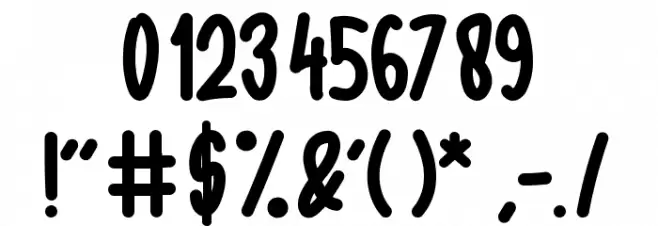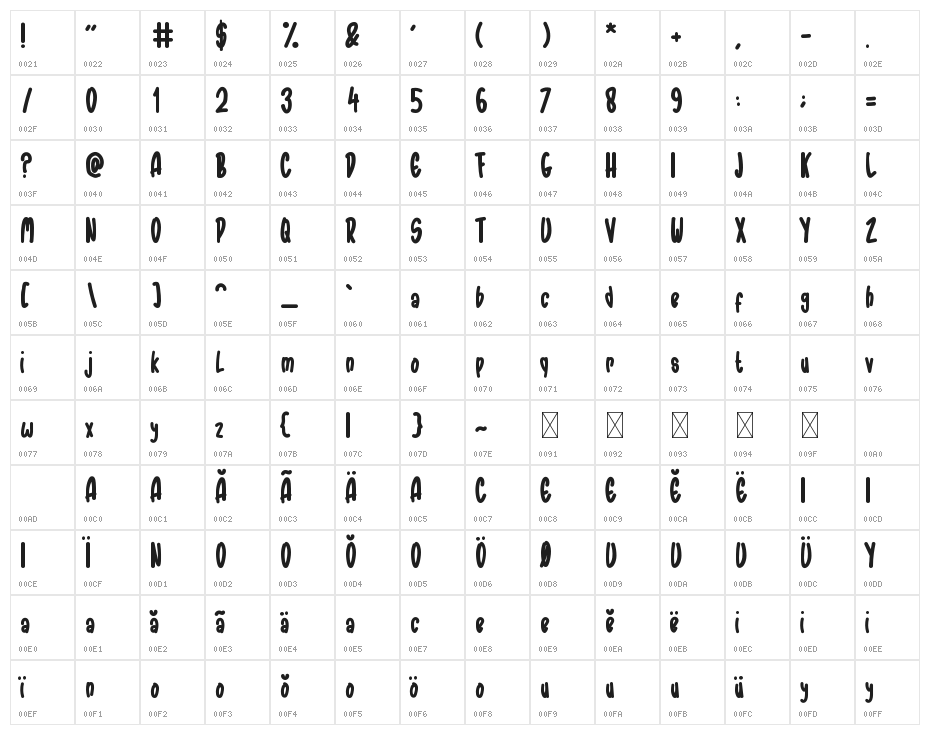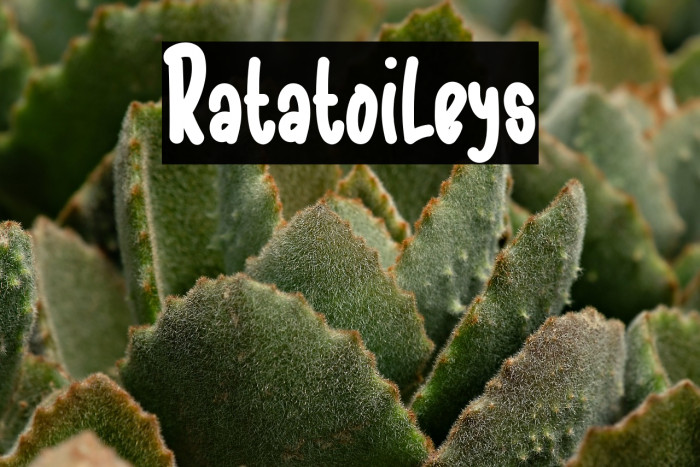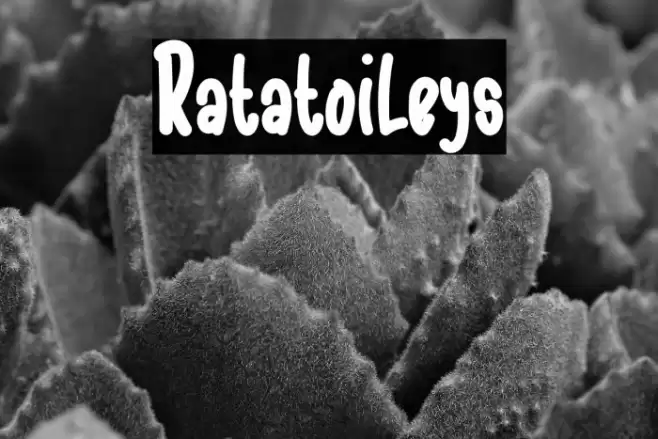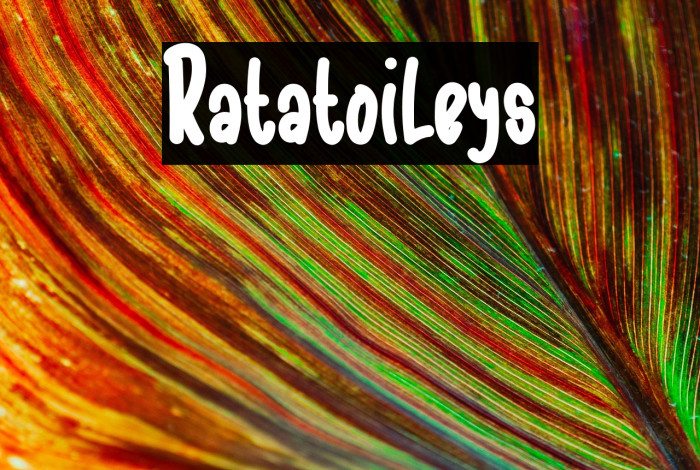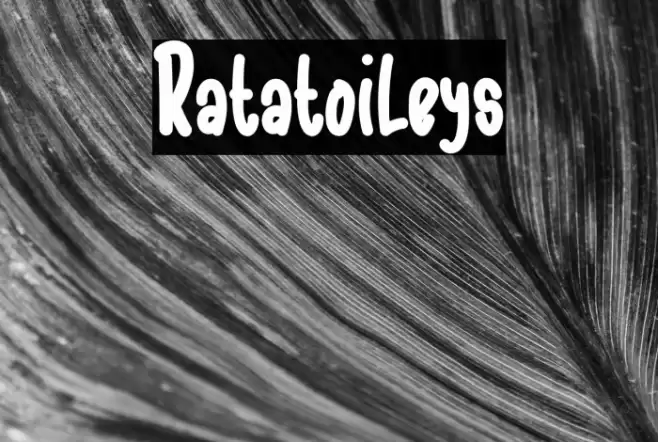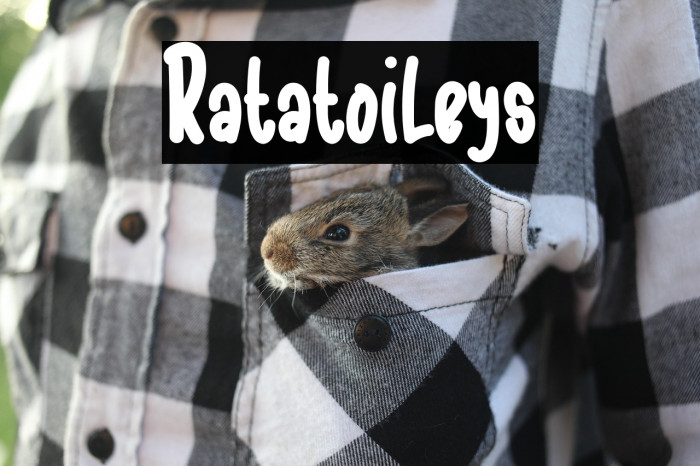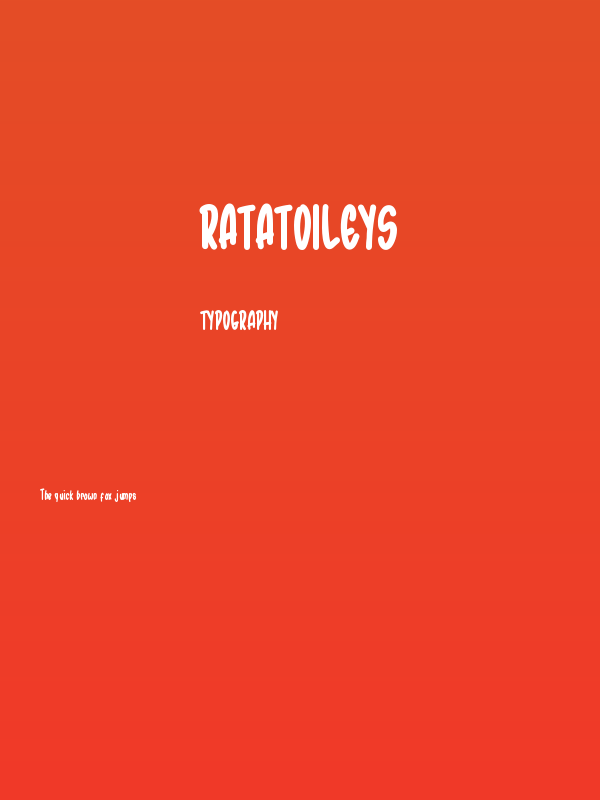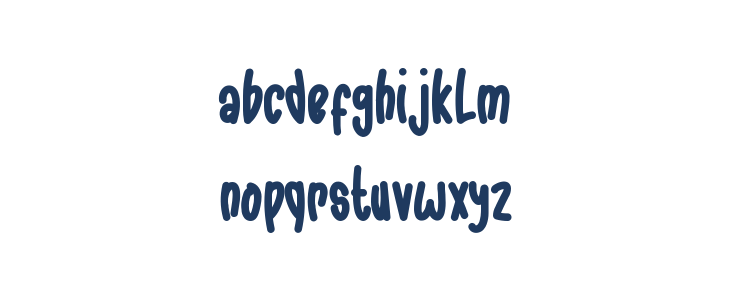
Ratatoileys Font
Ratatoileys Description
This playful and bold font features a handwritten style with a whimsical touch. The characters are rounded and slightly irregular, giving it a casual and friendly appearance. The uppercase and lowercase letters maintain a consistent style, with the lowercase letters slightly smaller in size. The numerals are clear and easy to read, matching the overall playful aesthetic. Special characters are included, maintaining the same bold and rounded style. This font is perfect for projects that require a fun and informal look.
| Overall Style | Playful, Casual |
| Proposed Projects | Ideal for children's books, playful branding, casual invitations, and creative posters. |